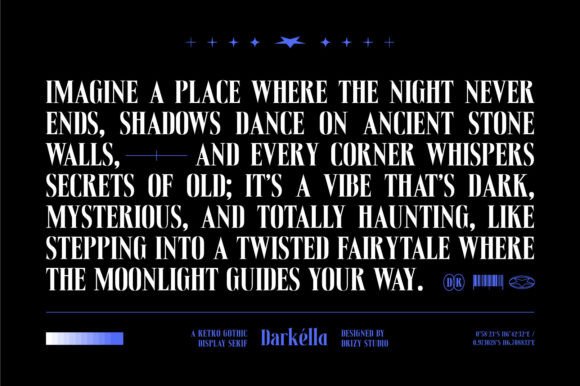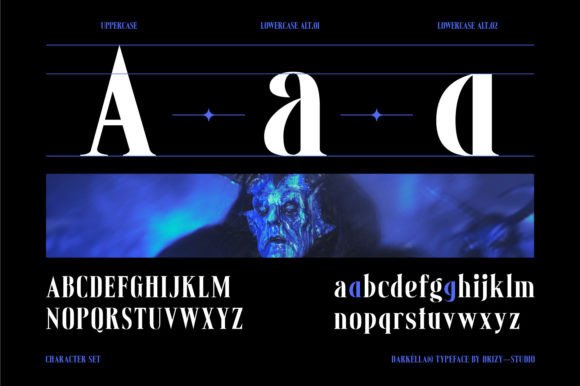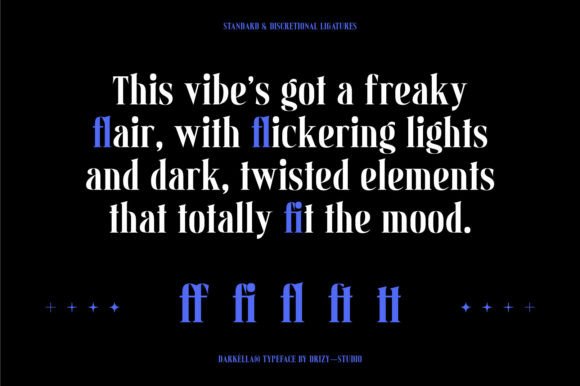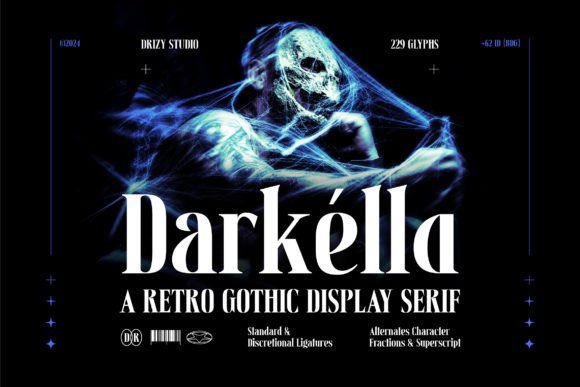
Introduction to Darkella Font
Darkella – Retro Gothic Display Serif Font Darkella is a bewitching blend of vintage elegance and dark allure, making it the perfect choice for your Halloween-themed projects.
With its bold and ornate letterforms, Darkella captures the eerie essence of classic gothic typography, while adding a touch of retro flair This font exudes a mysterious and haunting vibe, ideal for crafting spellbinding invitations, posters, and branding that demand attention.